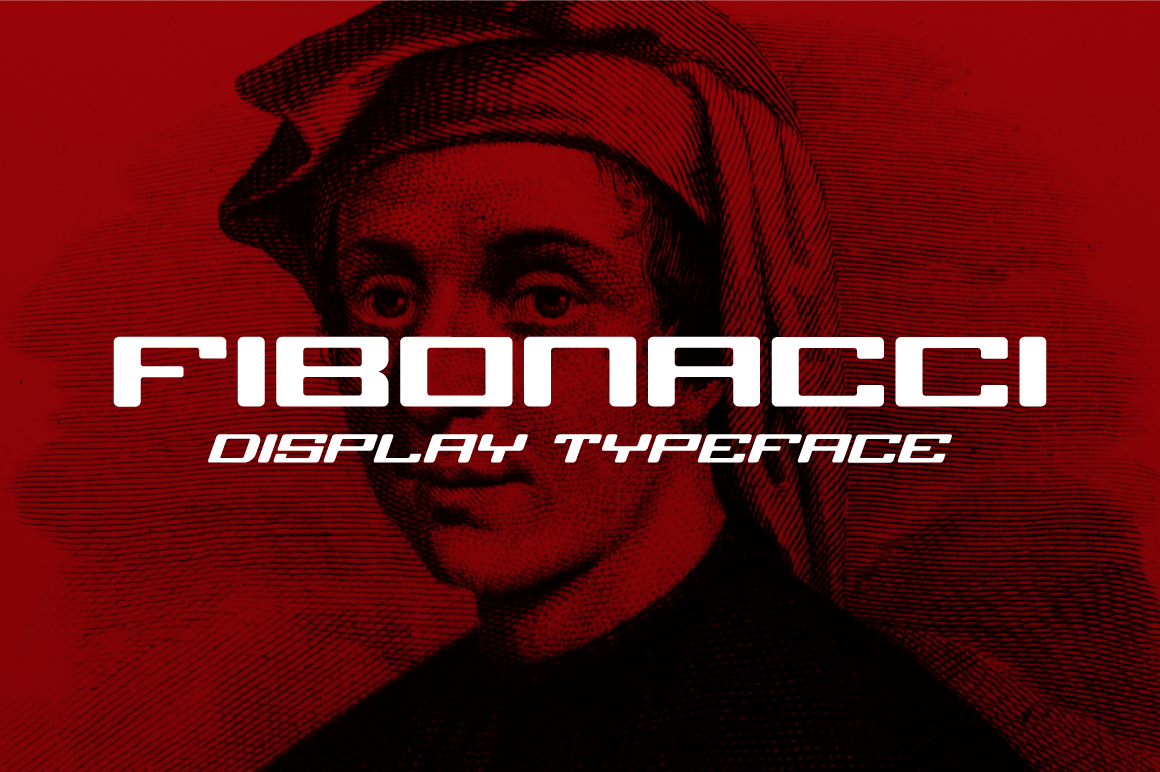
Fibonacci Display Typeface
Fibonacci is an extended display typeface created using the geometric proportions of the golden ratio, a derivative of Leonardo Pisano's Fibonacci Sequence. Fibonacci is bold, organized, and clean.
Two Styles: Regular & Italic.
Perfect for logotype!